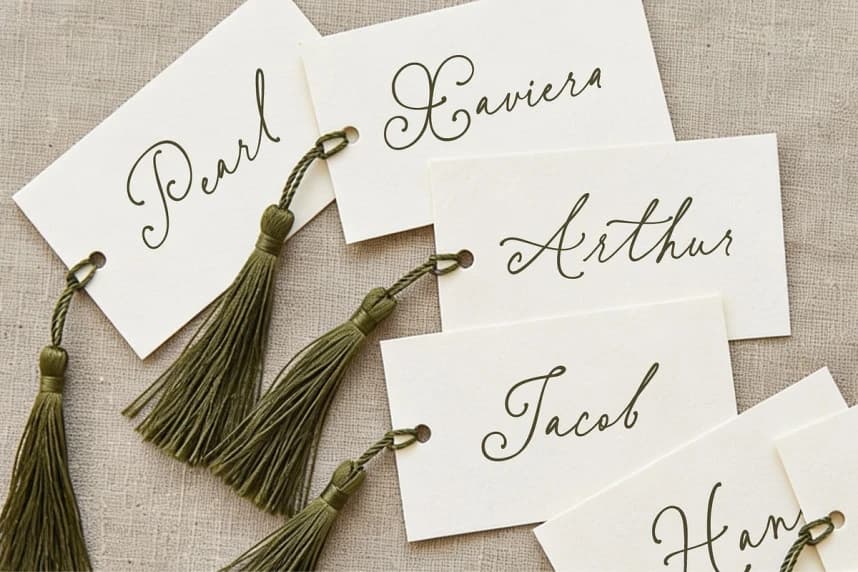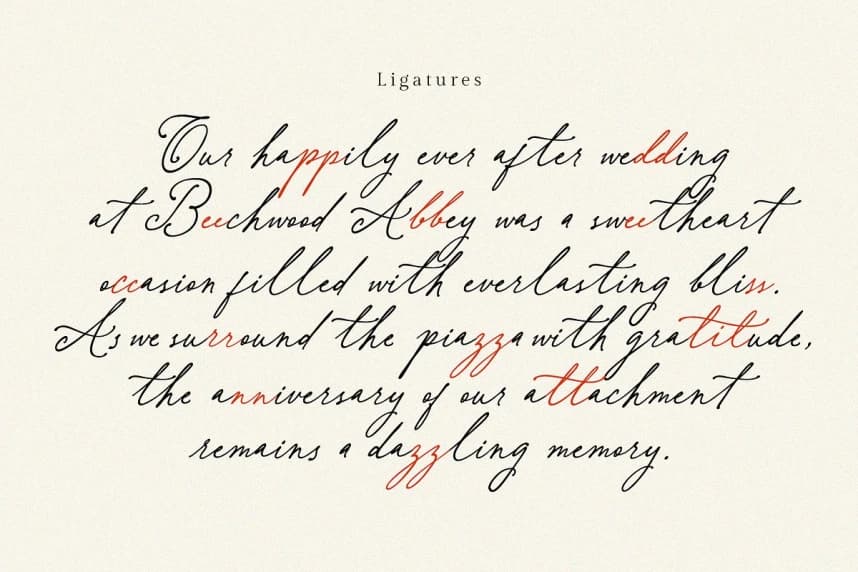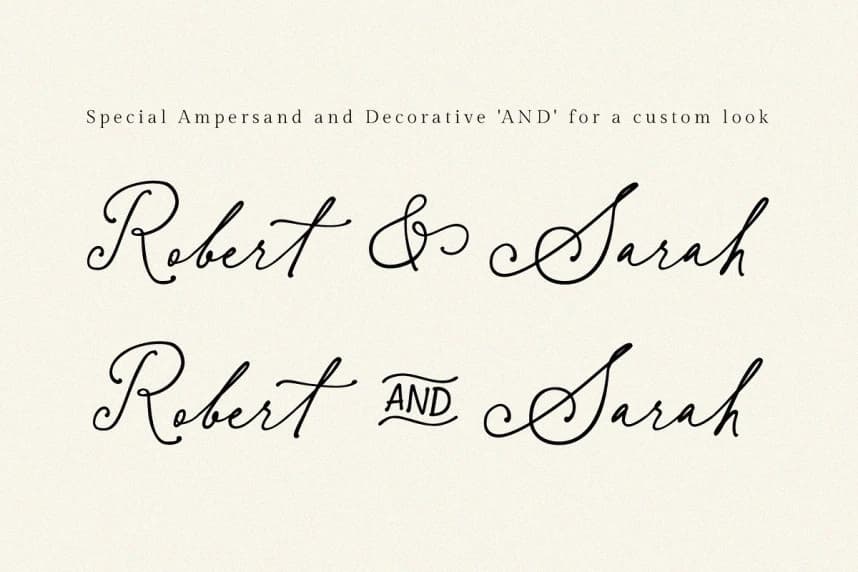
Betris & Daniel Font
Betris & Daniel Font is a sophisticated and romantic handwritten font, meticulously crafted to bring a touch of personal charm and high-end aesthetics to your projects. With its fluid strokes and authentic calligraphy feel